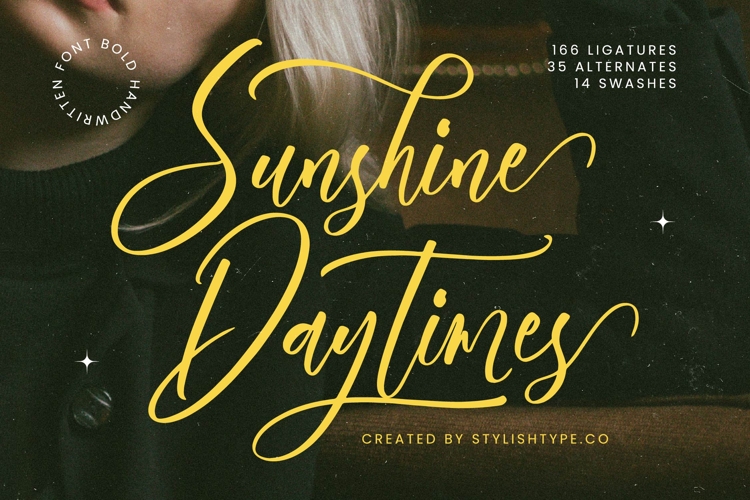
Sunshine Daytimes - Bold Handwritten Font
Font Sunshine Daytimes - Bold Handwritten Font Script offers an unparalleled blend of artisanal charm and sophisticated readability, poised to transform your creative endeavors. This exquisite script font boasts a bold presence with fluid, expressive strokes that convey a genuine handcrafted warmth. Its dynamic curves and elegant flow make every design feel uniquely and inviting, perfectly capturing attention with its distinctive character.
Unleash unlimited creative potential through its meticulously designed OpenType features. Font Sunshine Daytimes - Bold Handwritten Font Script is enriched with an impressive 166 ligatures, 35 alternates, and 14 swashes, allowing for truly bespoke typographic compositions. These extensive options empower designers to achieve a unique aesthetic, adding depth and authenticity that elevates any project from standard to spectacular.